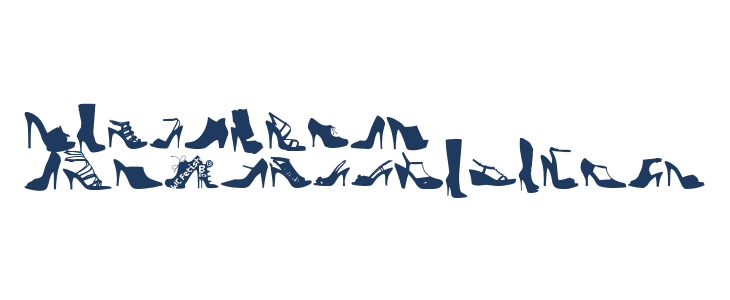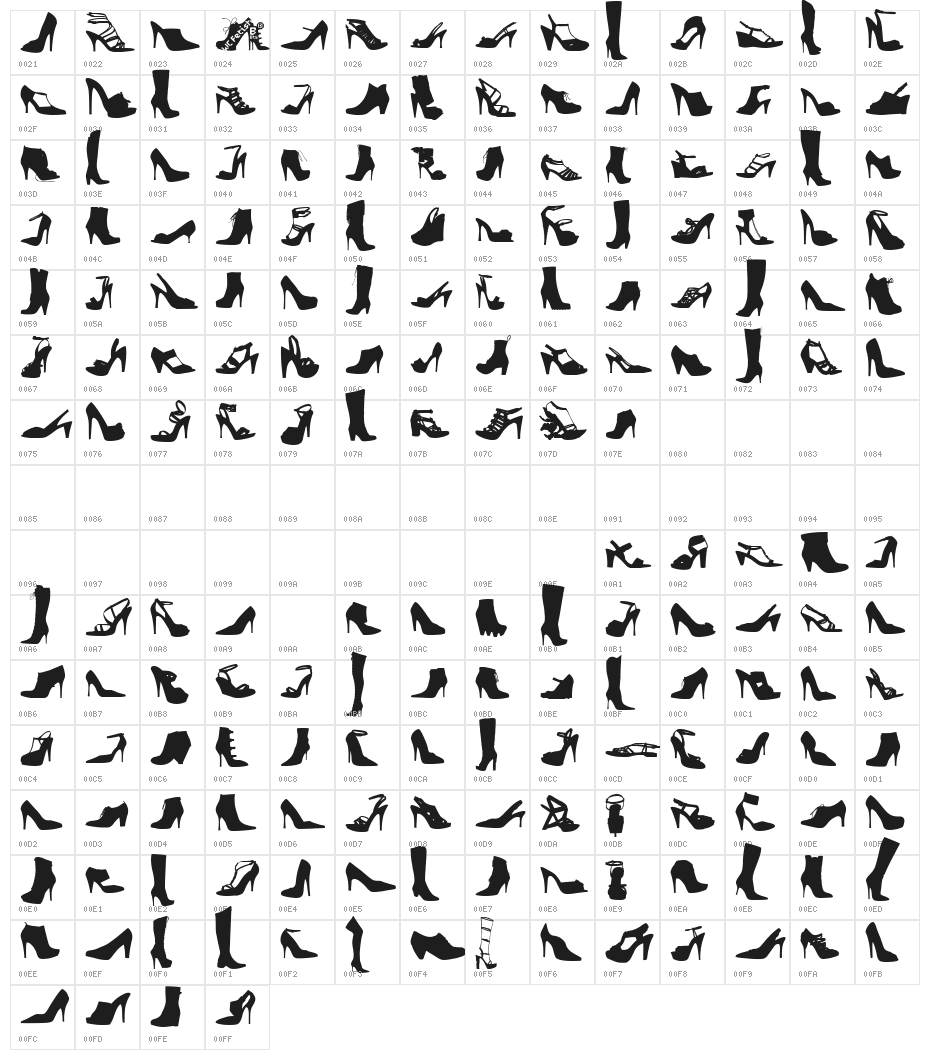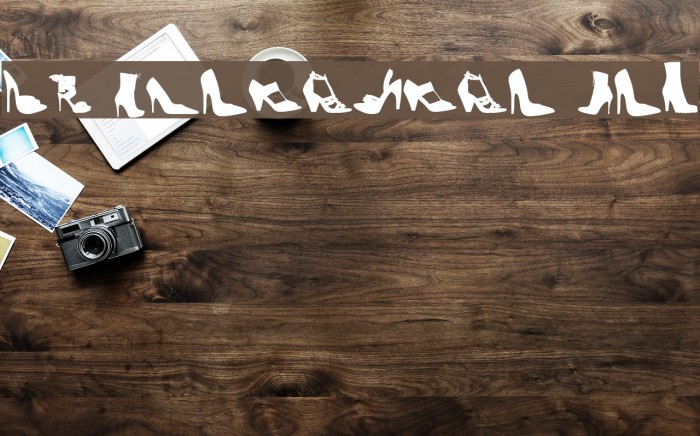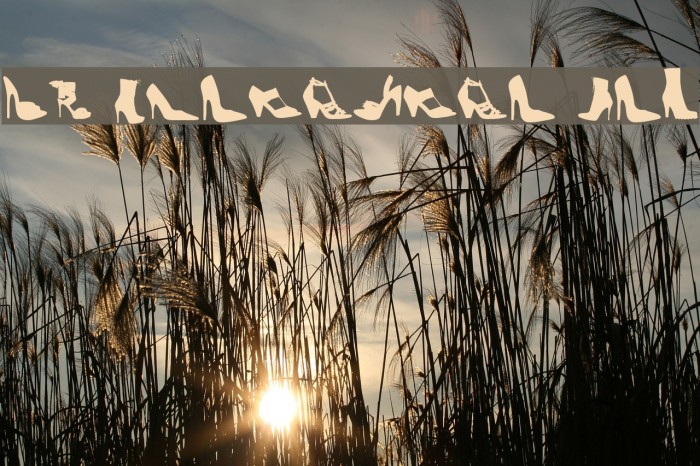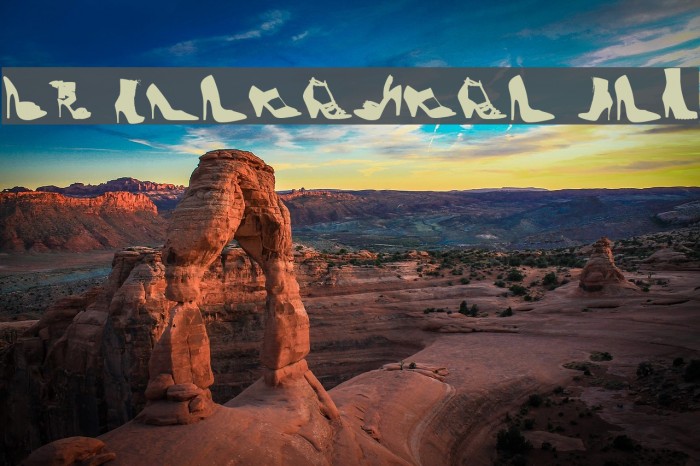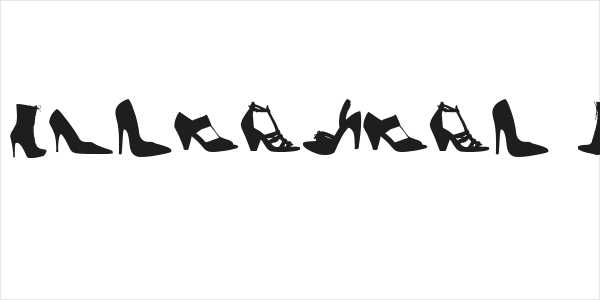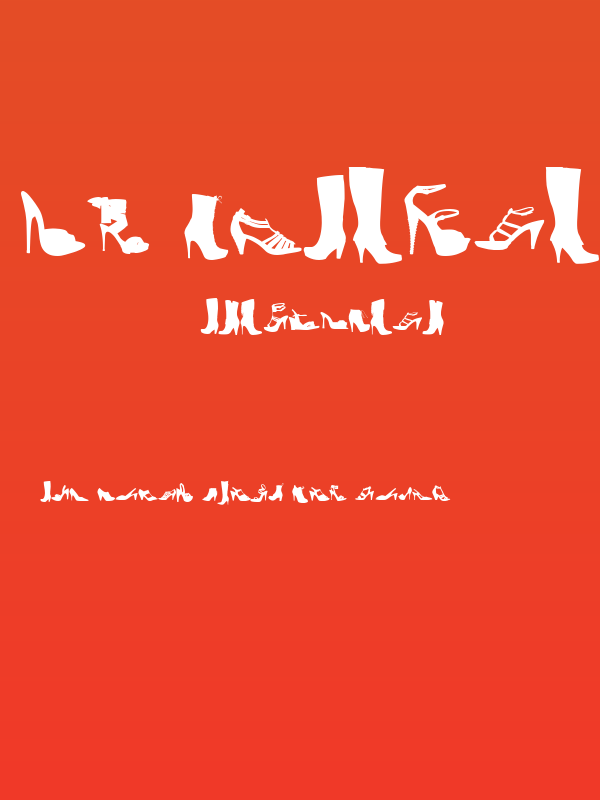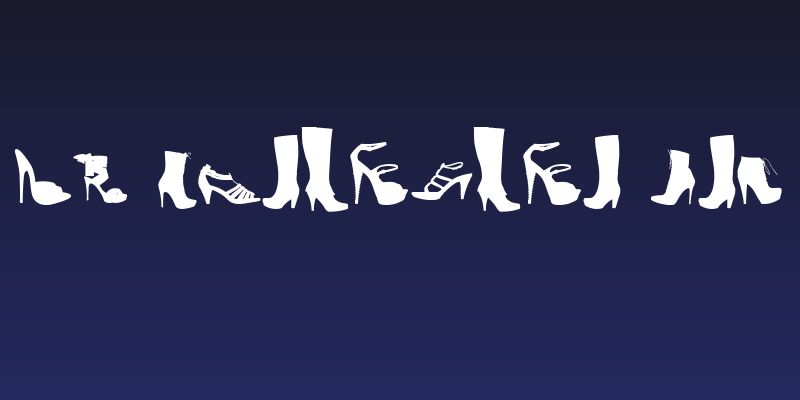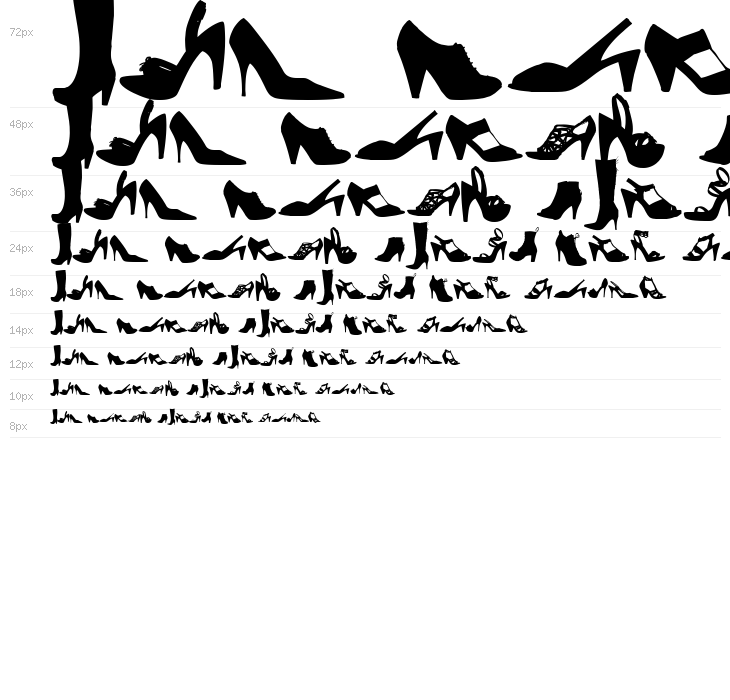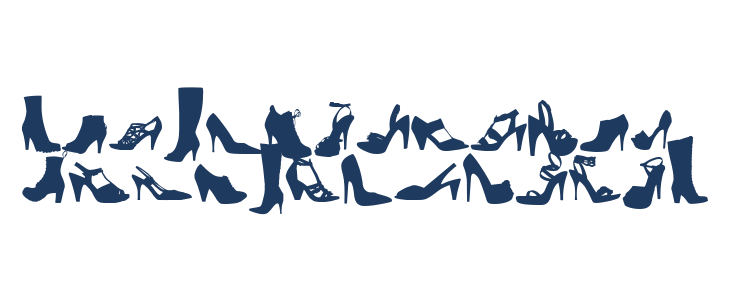
WC Fetishist Bta Font
WC Fetishist Bta Description
A playful decorative font where each character is represented by a unique silhouette of a high-heeled shoe or boot, creating a bold and whimsical visual effect. The glyphs are highly stylized and lack traditional letterforms, focusing instead on detailed shoe outlines.
| Overall Style | Decorative, Whimsical, Fashion-forward |
| Use Case | Logos, Headlines, Posters, Event Invitations |
| Proposed Projects | Fashion branding, event invitations, posters for shoe stores, themed parties, or any design needing a bold, fashion-forward statement. |